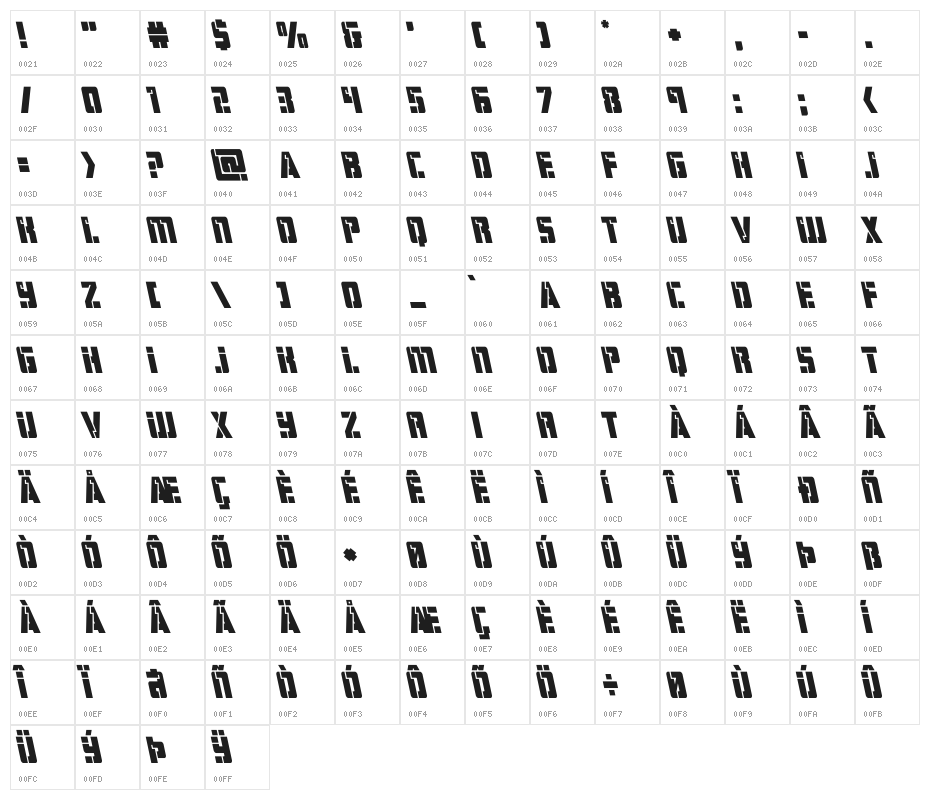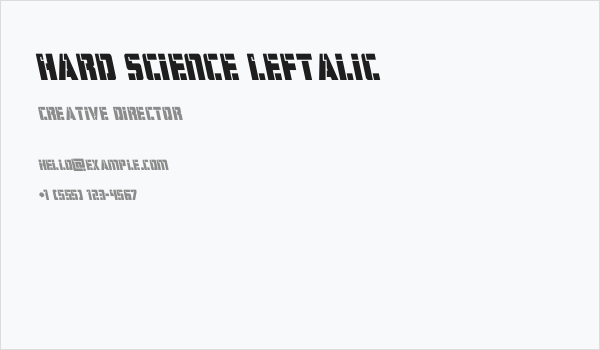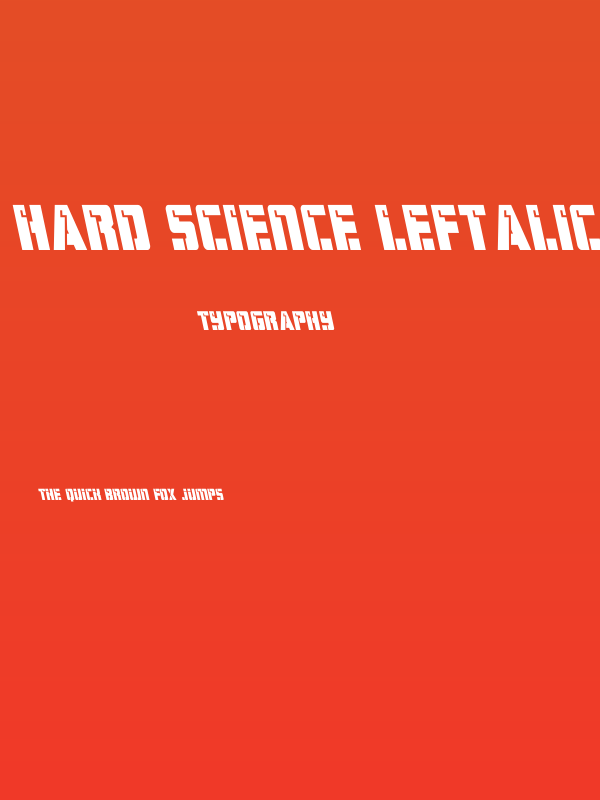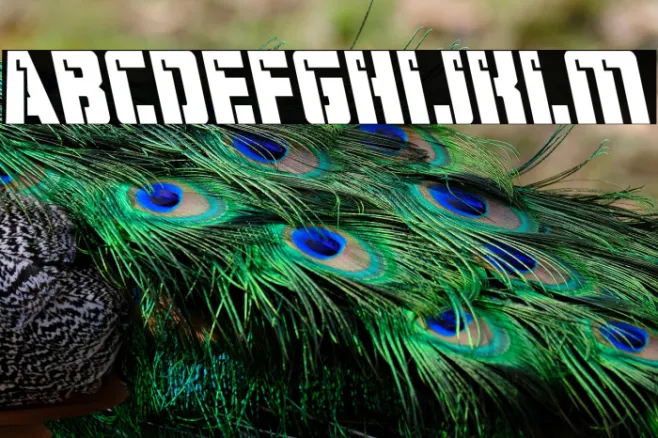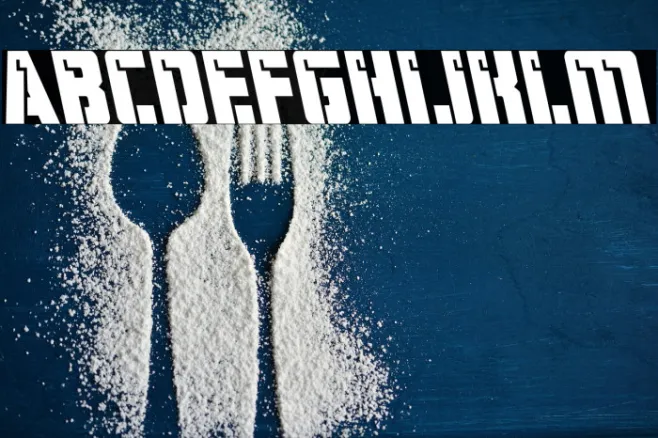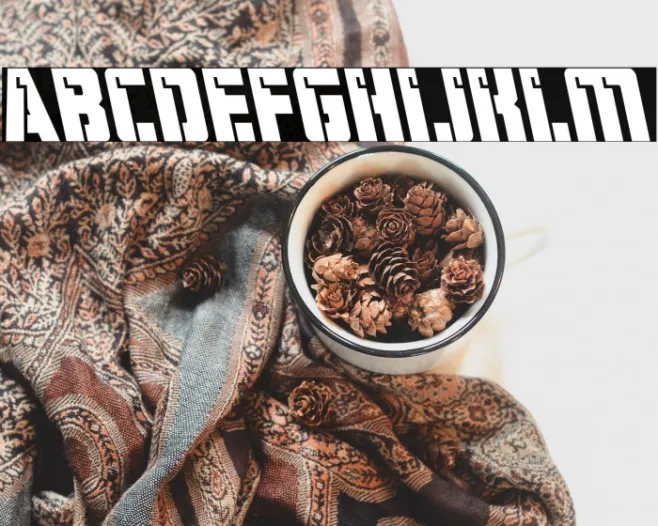
Hard Science Leftalic Font
Hard Science Leftalic Description
This font features a bold, geometric style with a distinct leftward slant, giving it a dynamic and futuristic appearance. The characters are constructed with thick, block-like strokes, creating a strong visual impact. The angular design and sharp edges contribute to its modern and industrial feel. Each letter and number is uniquely stylized, incorporating cut-out sections that add to its edgy and unconventional look. The special characters maintain the same bold and angular aesthetic, ensuring consistency across the font. This typeface is ideal for projects that require a bold statement and a contemporary edge.
| Proposed Projects | Ideal for sci-fi themed designs, video game titles, posters, and branding that requires a modern, edgy look. |